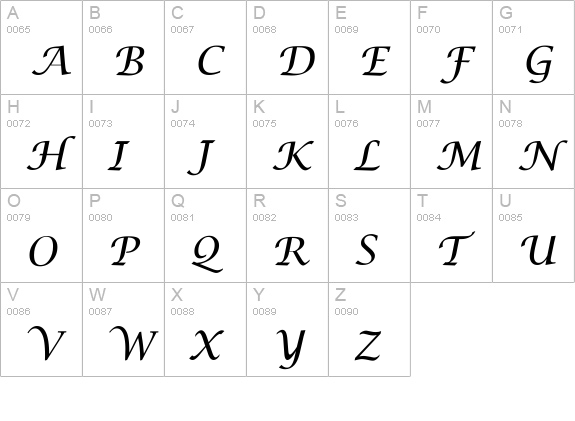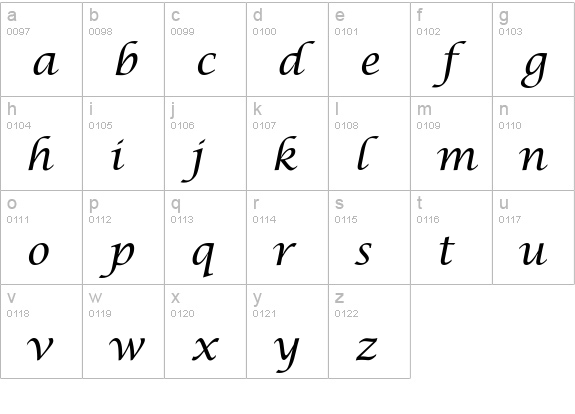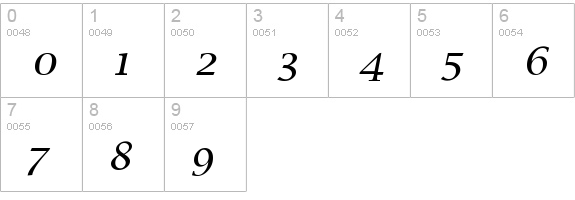
Lucida Calligra Font Details
Lucida Calligra is a beautifully crafted font that exudes elegance and sophistication. Its graceful curves and delicate strokes make it perfect for adding a touch of class to any design project. This font is versatile and can be used for various purposes, such as invitations, logos, branding, and more. What sets Lucida Calligra apart is not just its aesthetic appeal, but also its accessibility. This premium font is available for free download at FontsMarket.com, making it easily accessible to designers and creatives looking to elevate their work with a touch of timeless elegance. Whether you're a professional designer or a hobbyist, Lucida Calligra is sure to add a touch of refinement to your projects. Download it today and bring a touch of sophistication to your designs.